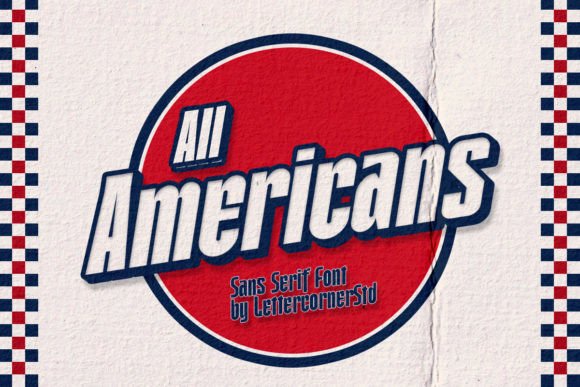
Introducing All Americans Font: The Ultimate Sans Serif for Web Readers
Embark on a typographic journey with All Americans Font, a remarkable sans serif creation from the esteemed Lettercorner Studio. Inspired by the bold lettering found on vintage motorcycles, this font exudes a sense of strength and character that will captivate your audience.
With its clean lines and sturdy structure, All Americans Font is the perfect choice for crafting elegant logos, powerful branding, and eye-catching movie posters. Its versatile nature extends to layout magazines, sports apparel, striking packaging designs, and thought-provoking quotes.
Unleash your creativity and transform your designs into works of art. Elevate your web presence with All Americans Font, the ultimate choice for web readers. Experience the beauty of seamless readability, where your words flow effortlessly across the screen, captivating your audience with their clarity and grace.
The All Americans Font is more than just a font; it's an expression of your unique style and personality. Whether you're a designer, marketer, or simply someone who appreciates the finer things in life, this font will elevate your projects to new heights.